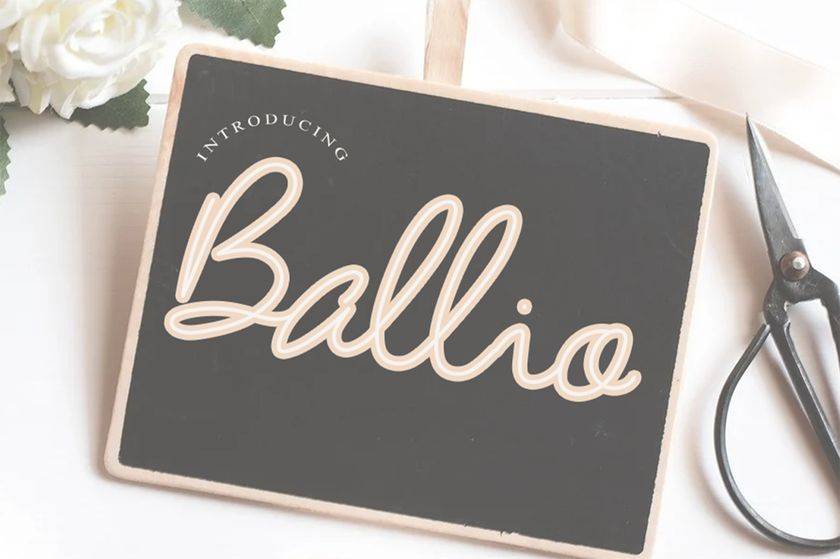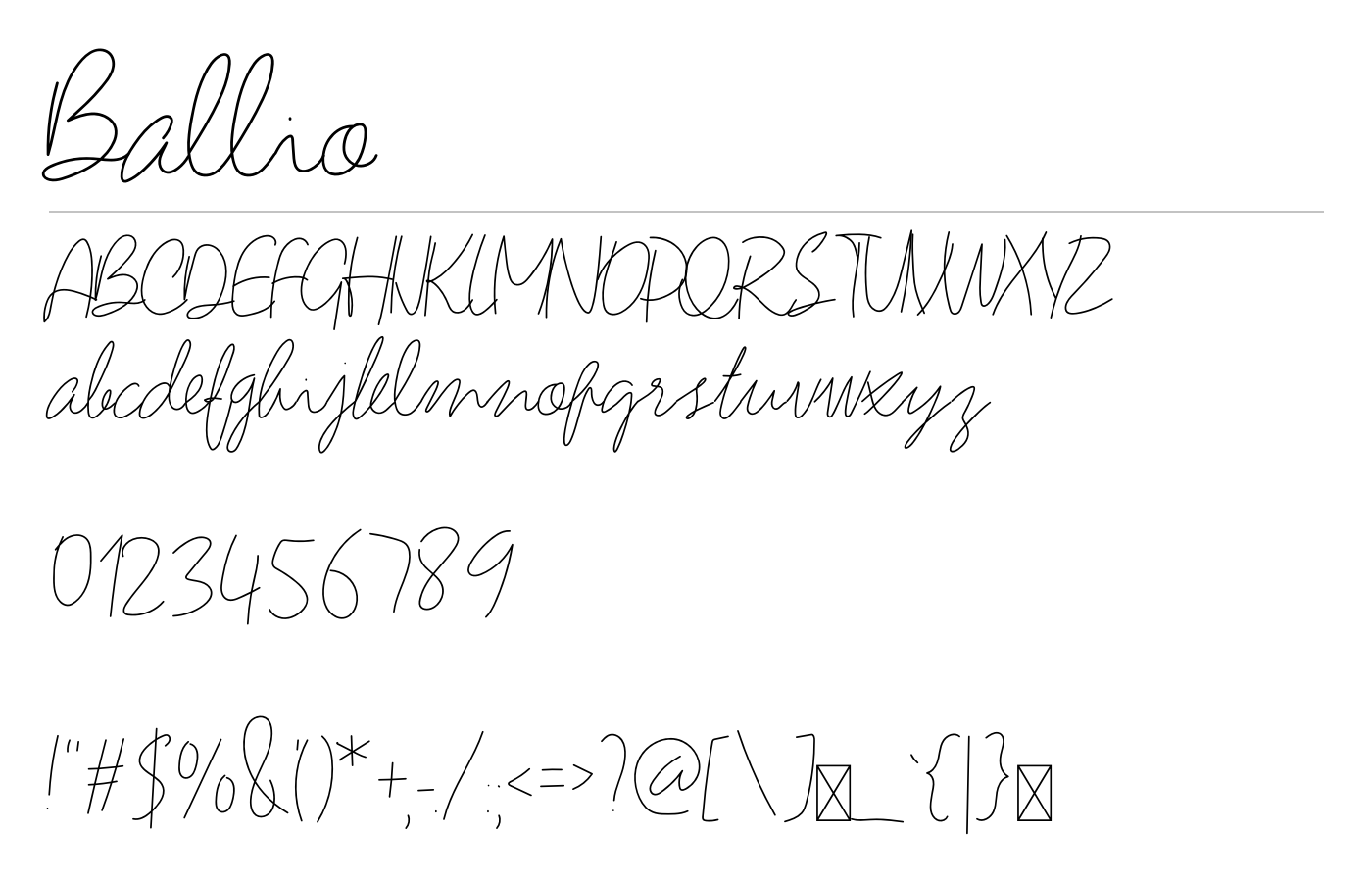
Ballio is a delicate, handwritten script font with a light, airy feel and slender, flowing strokes that give it a casual yet elegant personality. Its tall, narrow letterforms and consistent thin lines make it ideal for creative, personal branding, invitations, or fashion projects where a graceful, contemporary touch is desired. This font works best in headlines or short text where its refined style can shine without losing readability.
Ballio Font
About Ballio Font